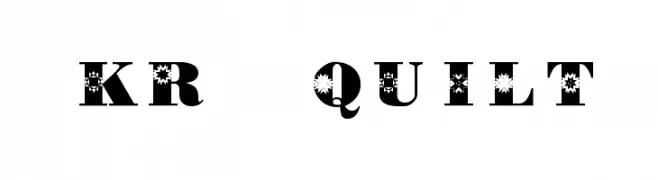
A decorative font with holly leaf embellishments on uppercase letters.
A decorative font with letters on scrolls, offering a vintage and elegant style.
A decorative font featuring St. Patrick's Day-themed icons and illustrations.
A Halloween-themed decorative font with witch silhouettes and bold letters.
A diverse set of decorative corner designs featuring floral, geometric, and architectural elements.
A decorative font inspired by astrology and celestial themes, featuring bold, high-contrast characters.
A bold, decorative font with quilt-like patterns and serif elements.
A decorative, Halloween-themed font with bold, sign-like characters.
Christmas and Nativity-themed dingbat illustrations.